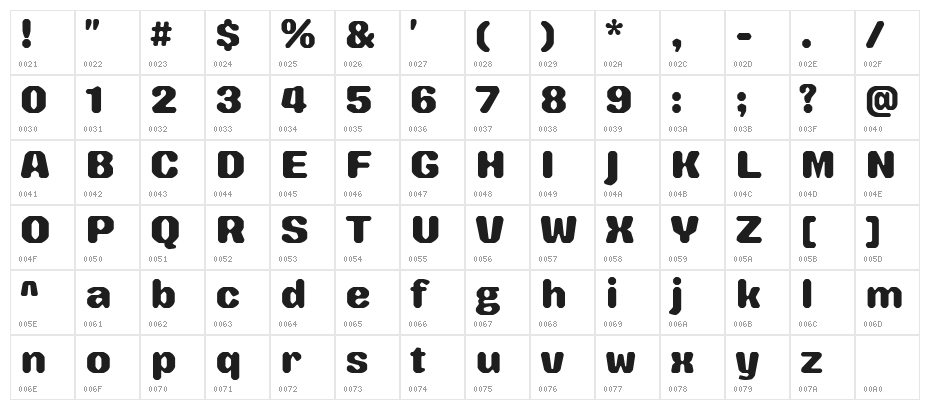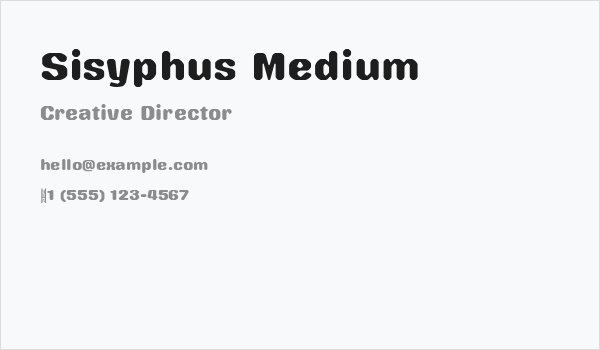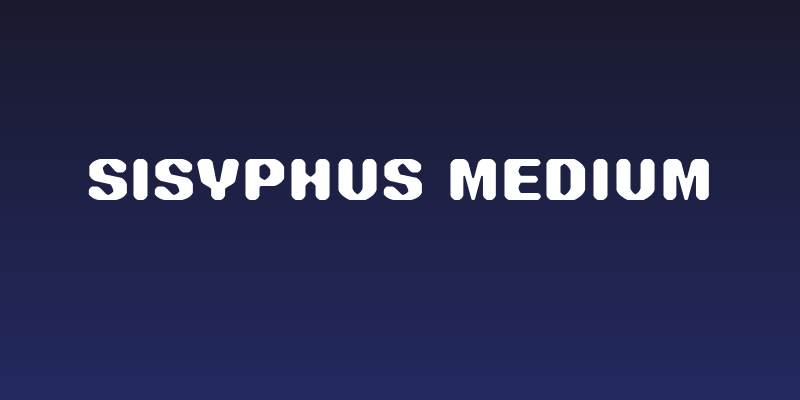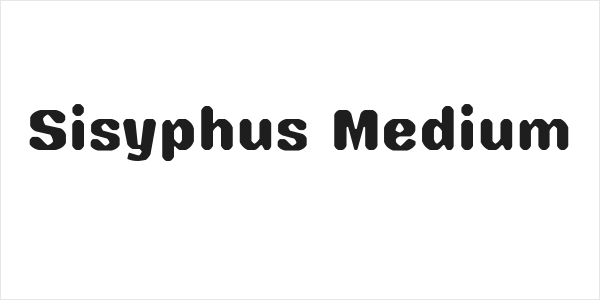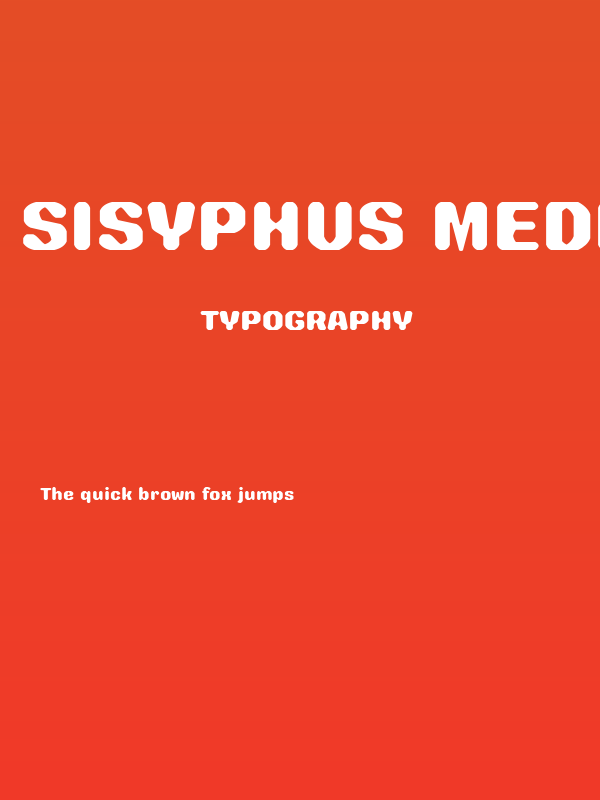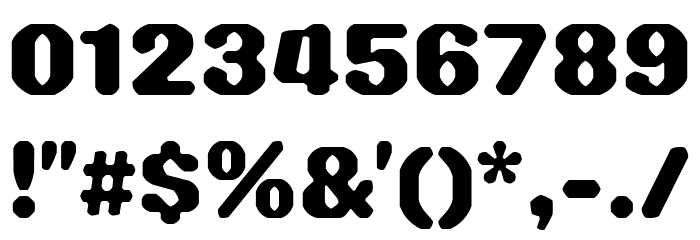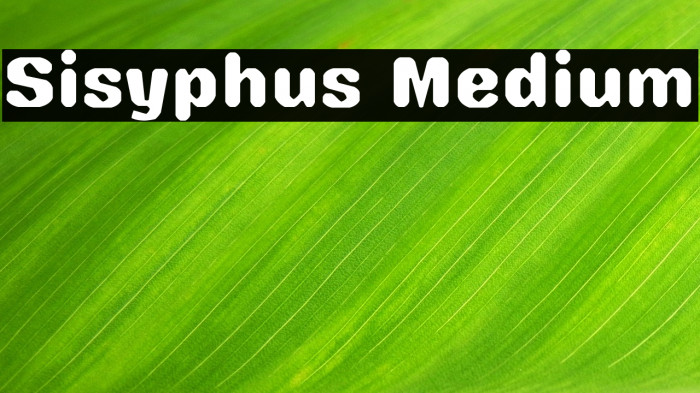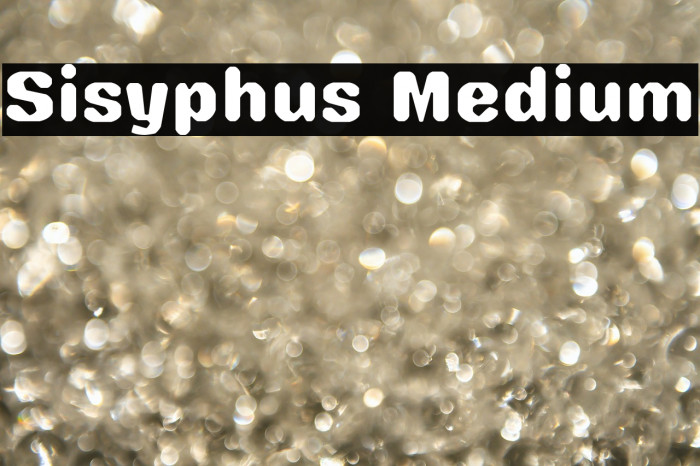
Sisyphus Medium Font
Sisyphus Medium Description
This font features bold, rounded characters with a strong presence, making it ideal for attention-grabbing designs. The letters are uniformly thick, with a consistent stroke width that gives a solid and robust appearance. The rounded edges soften the overall look, adding a friendly and approachable feel. The numbers and special characters follow the same design principles, ensuring a cohesive appearance across all glyphs. Its boldness and unique style make it suitable for impactful headlines and branding projects.
| Proposed Projects | Ideal for branding, posters, headlines, and any project requiring a bold and friendly typeface. |